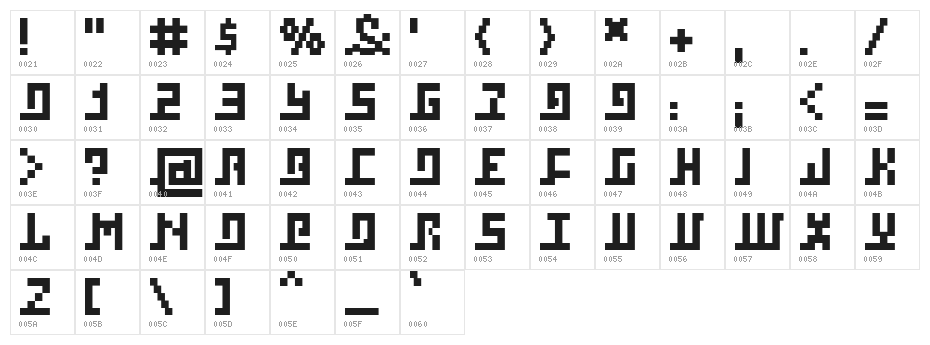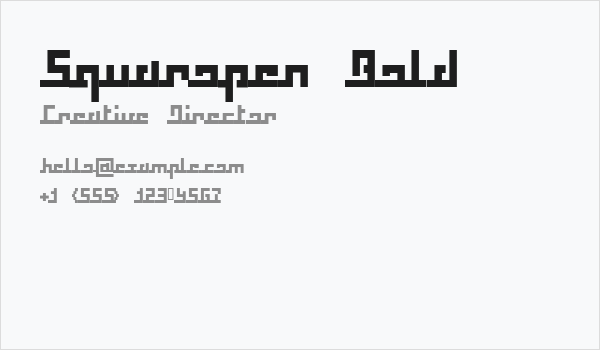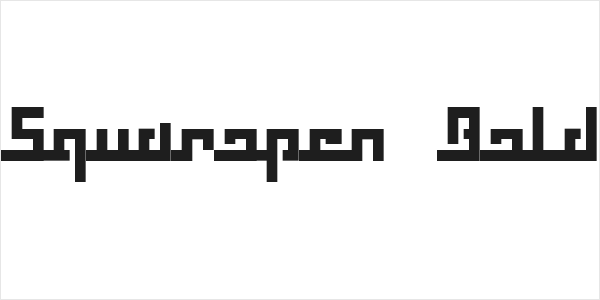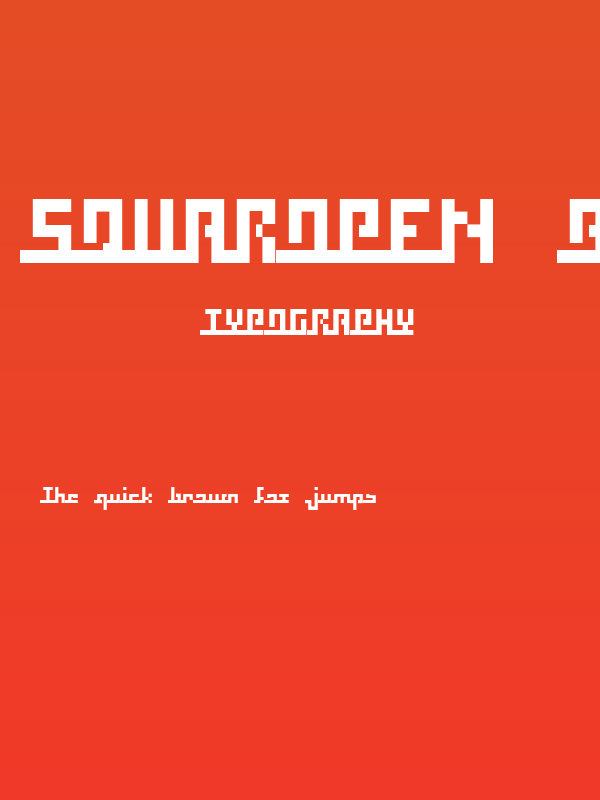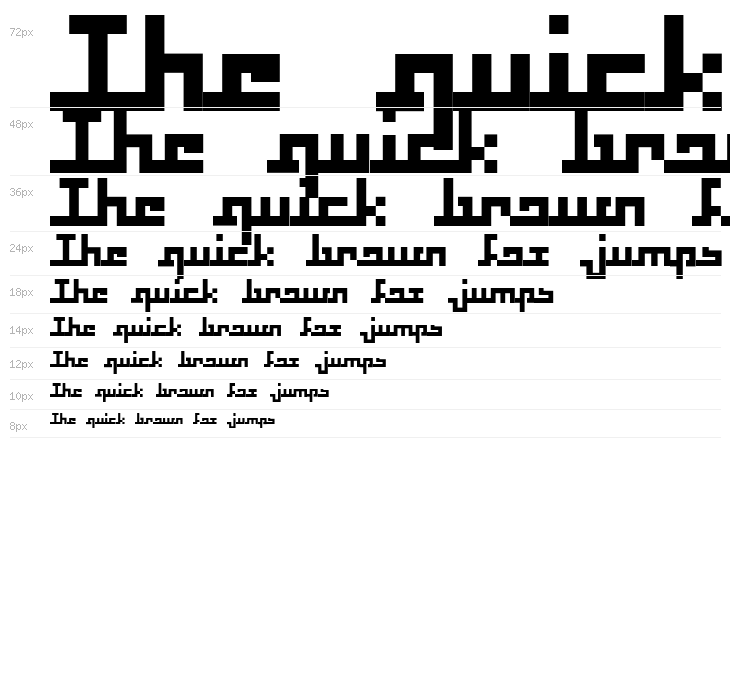
Squaropen Bold Font
Squaropen Bold Description
This font features a bold, geometric design with a pixelated, block-like appearance. Each character is constructed from a series of squares, giving it a distinctly digital and retro aesthetic reminiscent of early computer graphics or video game text. The uniformity in stroke width across all characters contributes to a cohesive and structured look. The uppercase and lowercase letters maintain a consistent height, while the numerals and special characters are designed to match the overall style, ensuring visual harmony. This font's unique style makes it stand out, offering a nostalgic yet modern feel.
SQUAROPEN-BOLD UPPERCASE
SQUAROPEN-BOLD LOWERCASE
SQUAROPEN-BOLD OTHER CHARS
| Overall Style | Modern, Retro |
| Use Case | Headlines, Logos, Digital Art |
| Proposed Projects | Ideal for retro-themed designs, video game graphics, digital art projects, and tech-related branding. |